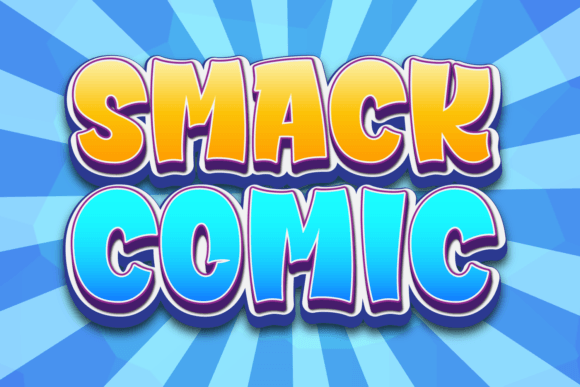
Step into the world of Smack Comic Font, a dazzling display font that captures the essence of joy and whimsy. This cartoon-inspired masterpiece, brought to life by Creative Fabrica Fonts, is a treasure trove of fun and charming characters, promising to transform your creative visions into unforgettable expressions.
Smack Comic Font's playful and thick strokes dance across the page, inviting you to embark on a journey of laughter and delight. It's a font that speaks to the child within, evoking memories of carefree days and boundless imagination.
Unleash the power of Smack Comic Font to create captivating designs that resonate with your audience. Picture the smiles on the faces of children as they wear t-shirts adorned with Smack Comic's playful characters. Imagine the joy of receiving a card or poster featuring Smack Comic's whimsical charm.
This font is not just for kids; its versatility extends to a wide range of creative endeavors. From eye-catching headlines and titles to book covers and apparel, Smack Comic Font adds a touch of whimsy and delight to any project.
With Smack Comic Font, you have the power to turn ordinary words into extraordinary statements. Its bold and playful nature commands attention, ensuring that your message stands out from the crowd.